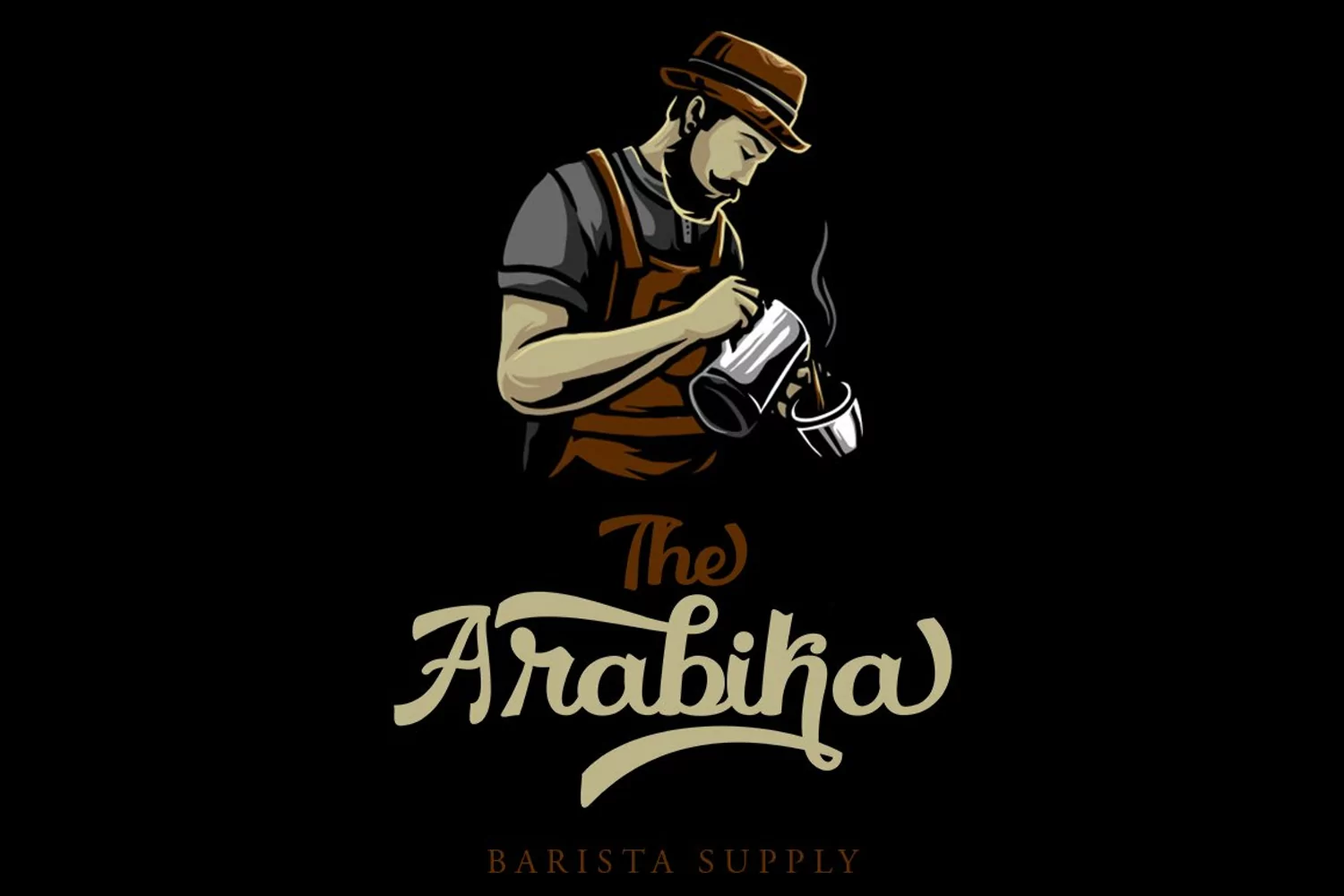
Breylone
Breylone is a new modern bold script font with an irregular baseline. Feminine style and style.Breylone looks beautiful on wedding invitations, thank you cards, quotes, greeting cards, logos, business cards and more. Perfect for use in ink or watercolor. Includes start and end letters, alternatives and support for many languages.